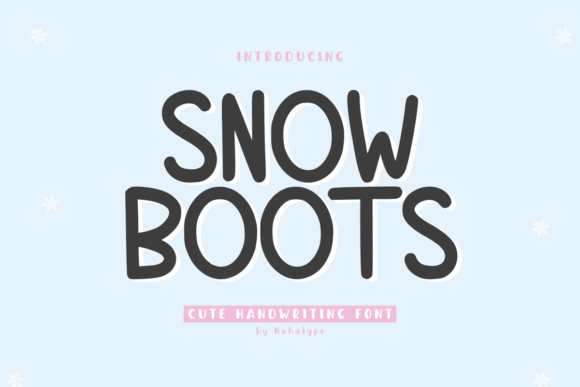
How Snow Boots Transformed My Bakery’s Brand
Running a small bakery has always been about more than just baking good bread and pastries. It’s about creating a warm, inviting experience that customers remember. But as my business grew, I realized that the little details—like the font on my packaging—played a bigger role in shaping how my brand was perceived. That’s when I discovered Snow Boots, a sans serif font that felt like a perfect match for my cozy, handmade vibe.
The Moment I Needed a Font Change
A few months ago, I decided to refresh my packaging to make it look more consistent and professional. I had been using a generic sans serif font that looked okay but didn’t really stand out. I wanted something that would feel friendly and handcrafted, yet still have a clean, modern edge. I needed a font that could work across all my materials—labels, menus, thank-you cards, and even social media graphics.
Why I Chose Snow Boots
Snow Boots caught my eye because of its soft, friendly, and natural look. It’s a sans serif font with a handwriting feel that adds a touch of personality without being too ornate. The design is warm and approachable, which made me think of the kind of feeling I wanted to convey to my customers: welcoming, trustworthy, and a little bit special.
What really sold me was how versatile Snow Boots is. It works well for both headlines and body text, making it ideal for everything from logo design to product labels. I tested it on a few sample tags and found that it looked great on both printed packaging and digital content. It also has a nice balance between being decorative and readable, which is crucial for small labels and mobile screens.
Using Snow Boots in My Business
I started by applying Snow Boots to my bakery box labels. The font added a personal touch that felt right for a small, family-run business. I then used it for my menu, which helped create a cohesive look across all my materials. Even my thank-you cards now have a more polished and memorable appearance thanks to this font choice.
One of my favorite uses so far has been for my Instagram templates. Snow Boots looks great in social media graphics, especially when paired with a clean sans serif font for contrast. It helps my brand stand out in a crowded feed while maintaining a friendly and approachable tone.
Typography and Brand Perception
Typography plays a huge role in how customers perceive your brand. A well-chosen font can make your business look more professional, consistent, and trustworthy. Snow Boots has helped me achieve that balance. It’s not too flashy, but it’s still distinctive enough to leave an impression.
Readability is key, especially when designing for small labels or mobile screens. I’ve found that Snow Boots works well at smaller sizes, which is important for things like packaging tags and product mockups. It’s also great for display text, making it a versatile choice for headlines and short phrases.
Font Pairing Ideas
If you’re looking to pair Snow Boots with other fonts, I recommend starting with a clean sans serif font for body text. This creates a nice contrast while keeping the overall design balanced. For a more elegant look, you could pair it with a classic serif font. If you want to add some flair, a script or handwritten font could complement Snow Boots nicely.
It’s also worth considering the mood you want to convey. Snow Boots is great for a warm, friendly vibe, but it can also be adapted for more modern or minimalist designs depending on how you use it.
What to Look For Before Using Snow Boots
Before using any font commercially, it’s important to check the licensing and file formats included. Make sure you have access to the necessary styles, weights, and alternates. Also, consider multilingual support if you plan to use the font internationally. Snow Boots offers a range of options that should suit most design needs.
Don’t forget to test the font on different mediums. How does it look on print versus screen? Does it maintain its readability at small sizes? These are all important factors when choosing a font for your brand.
Conclusion
Choosing the right font can make a big difference in how your brand is perceived. Snow Boots has helped me create a more consistent and memorable visual identity for my bakery. It’s a great choice for small businesses looking to elevate their brand through thoughtful typography. Whether you run a café, a boutique, or an online shop, Snow Boots could be the simple change that makes your brand stand out.